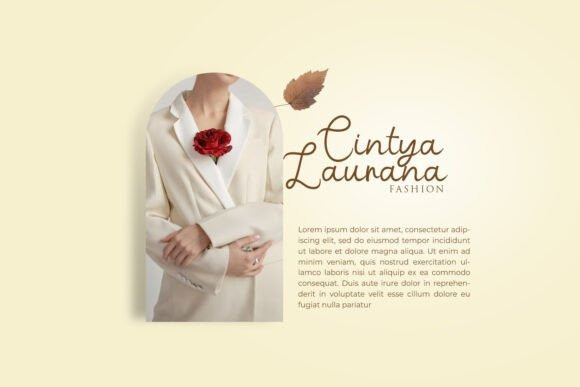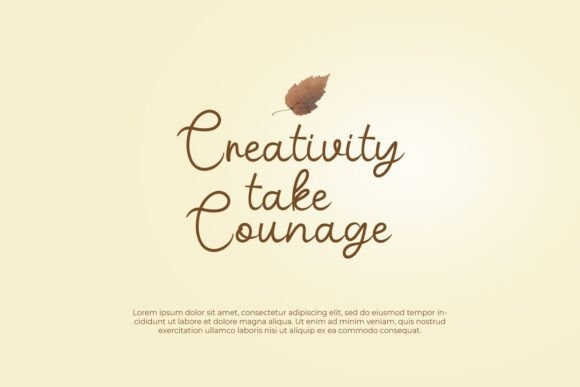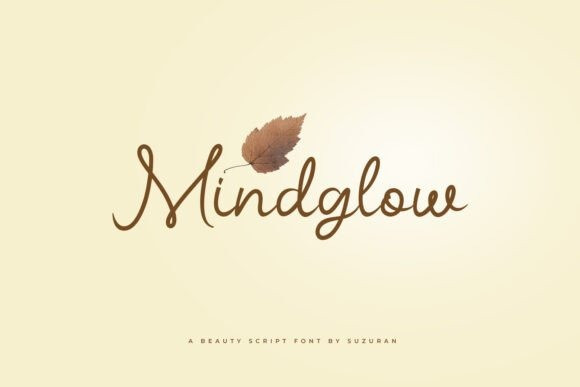
Mindglow Script Font
Mindglow Script Font with a fresh and unique script with a beautiful touch that is perfect for your design work and extraordinary design projects. This font is perfect for posters, logos, magazines, book covers, banners and more! Get this amazing font, and use it to create beautiful designs. It can easily be adapted to a very large set of projects, so add it to your creative ideas and watch how it makes it stand out!